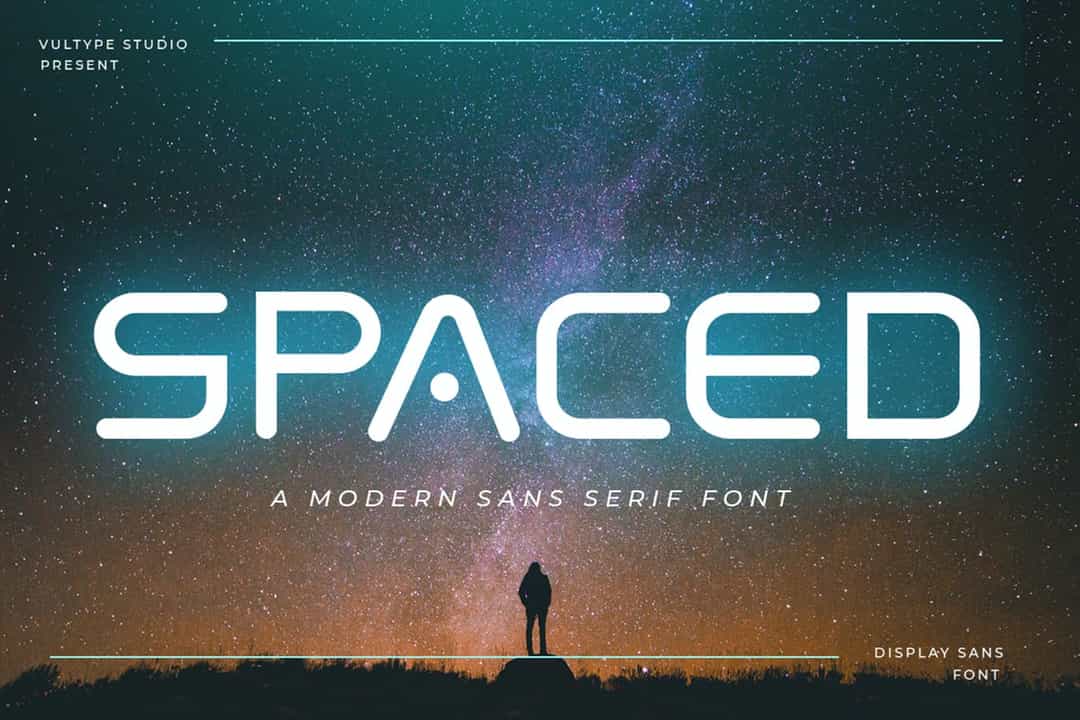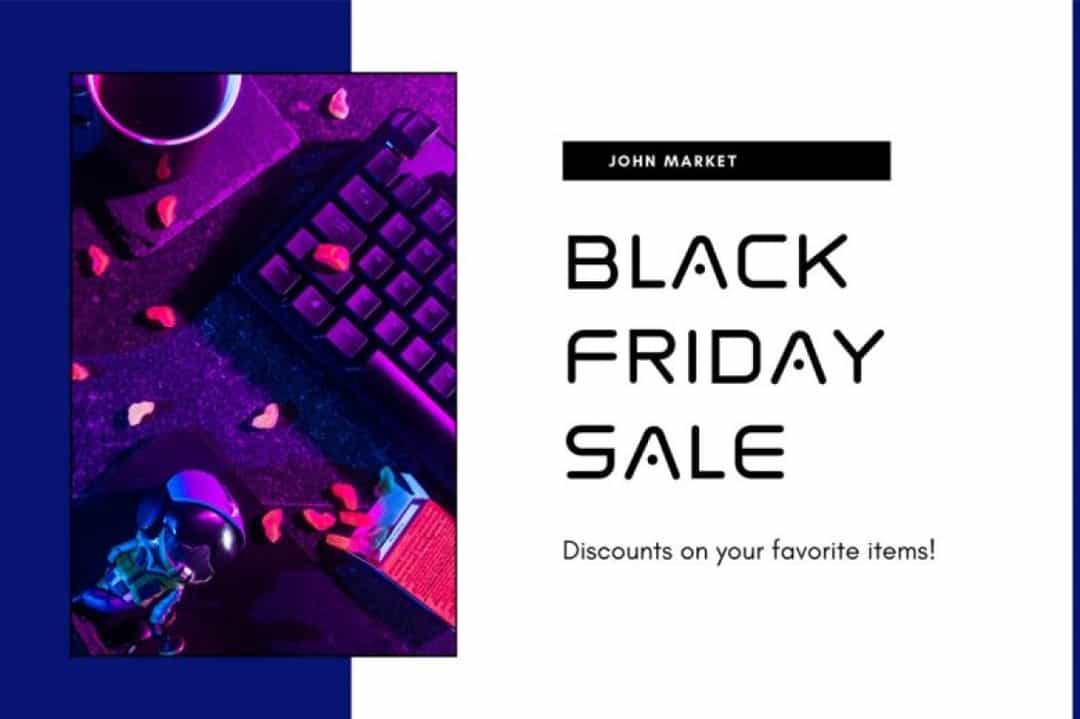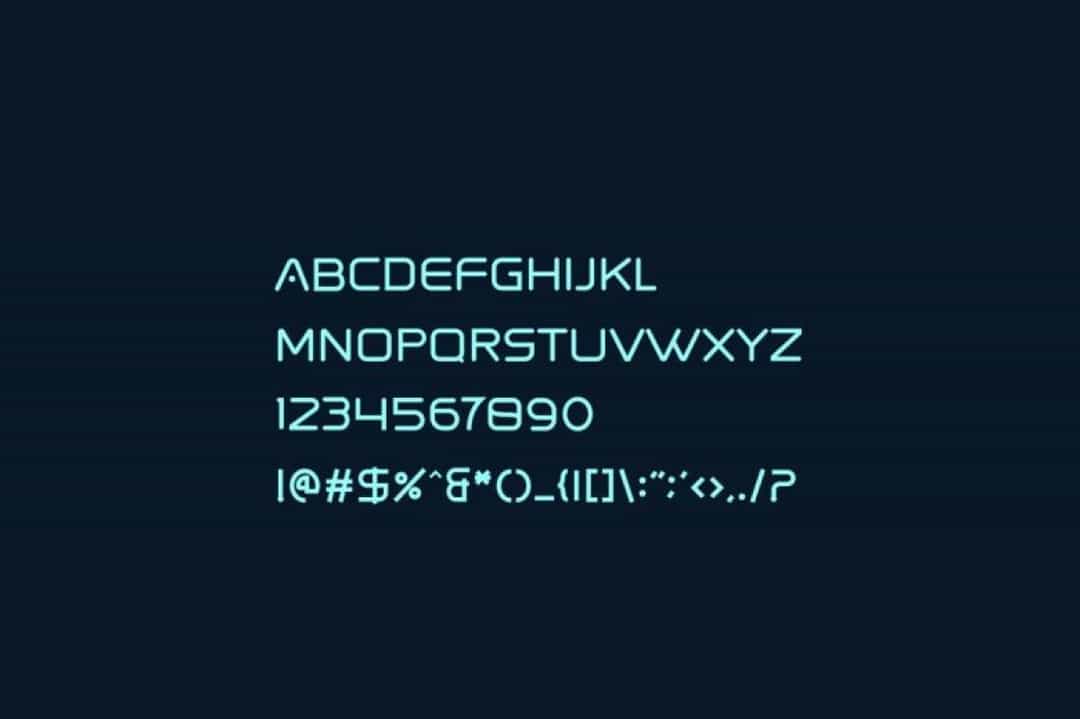
Spaced is an innovative sans serif font with a distinctive lowercase that makes your designs appear modern and futuristic. Spaced can be used for any purpose – especially to create logotypes.